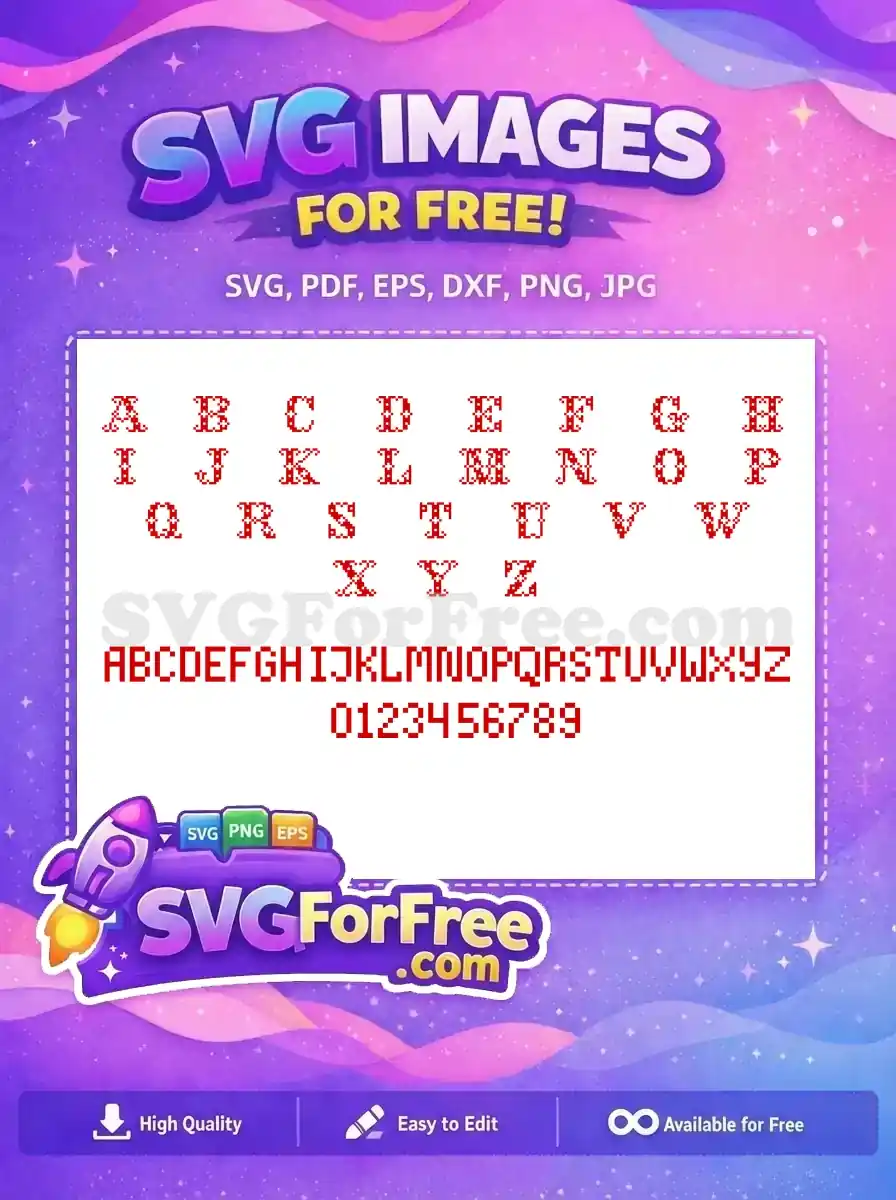
Free Pixelated Red Font Free Alphabet Numbers Holidays Free SVG – Instant Download
A Christmas alphabet and number set in a decorative, festive style. A complete and free font-like graphic.
Free Pixelated Red Font Free Alphabet Numbers Holidays Free SVG